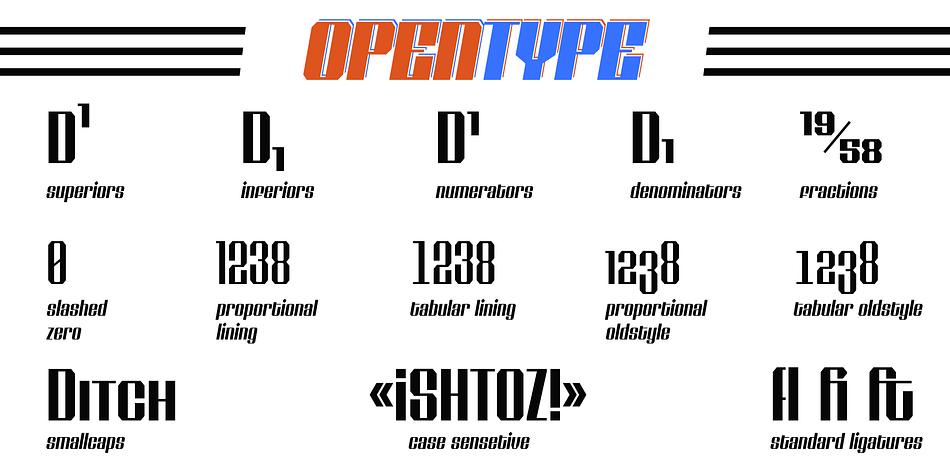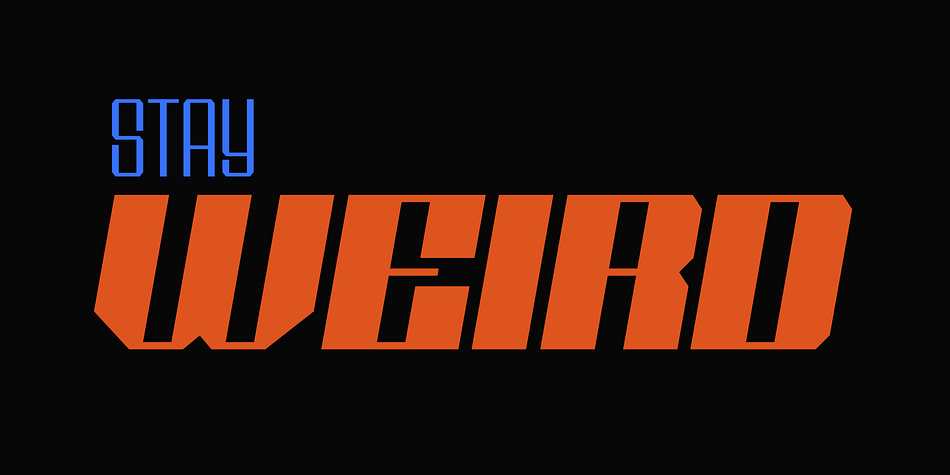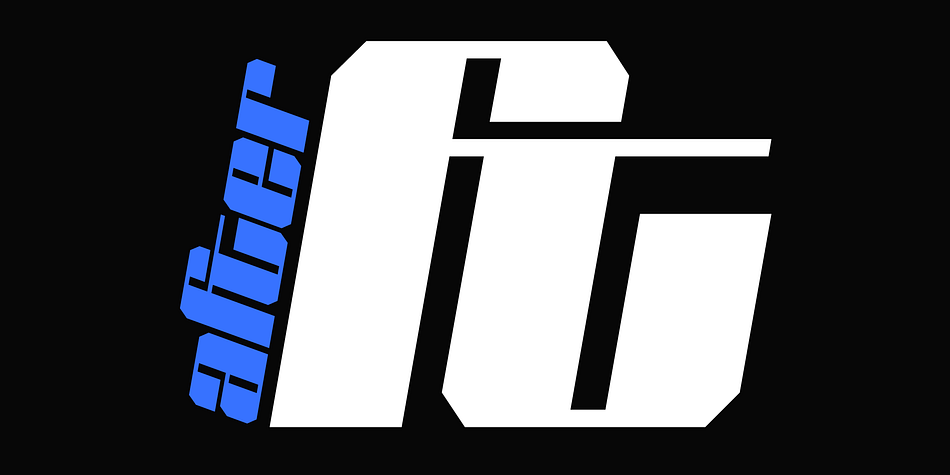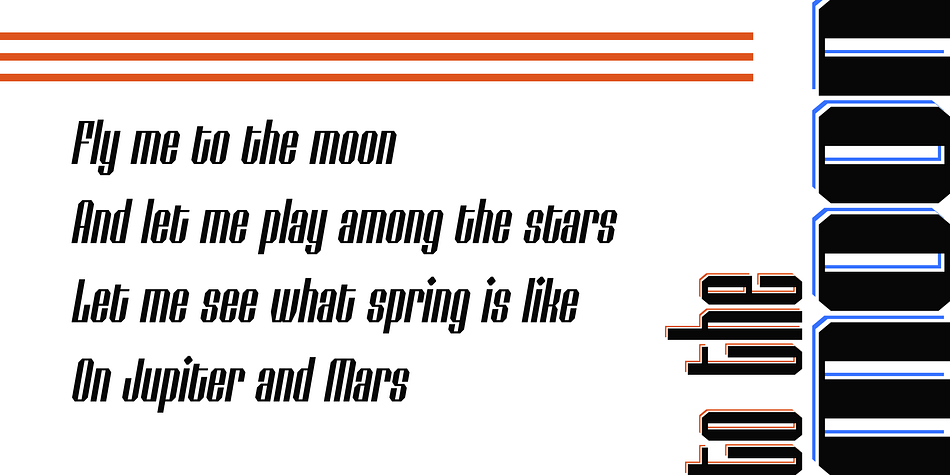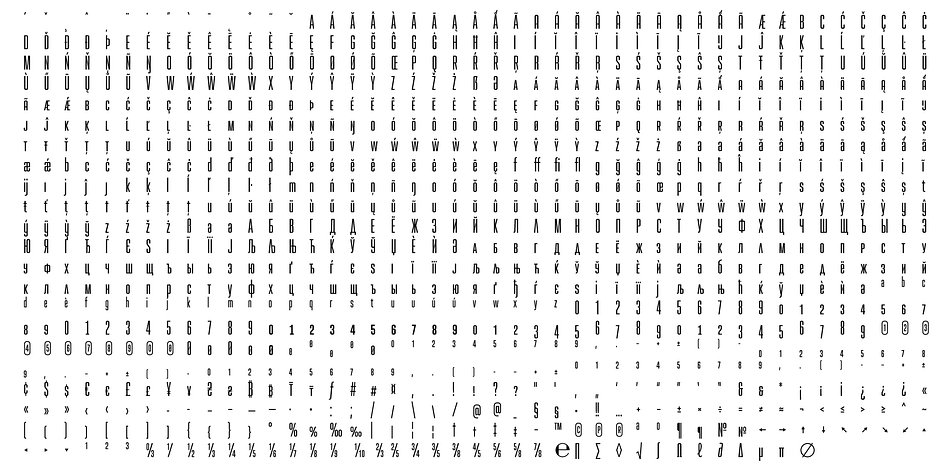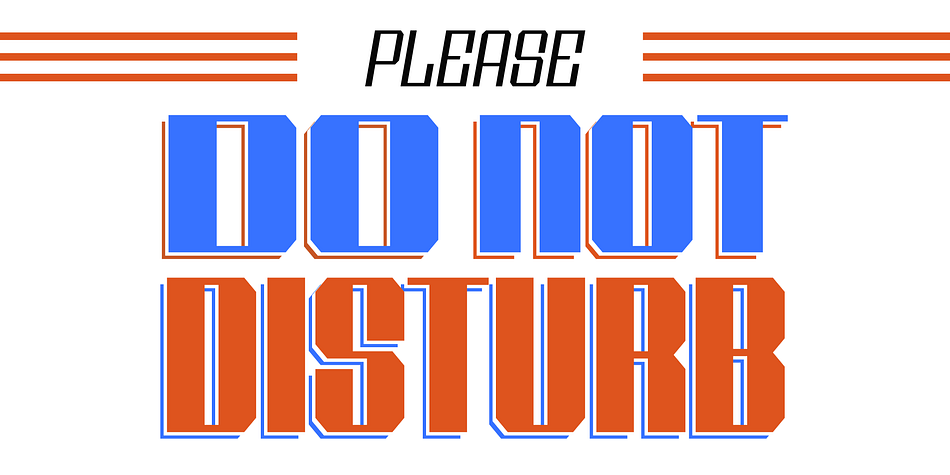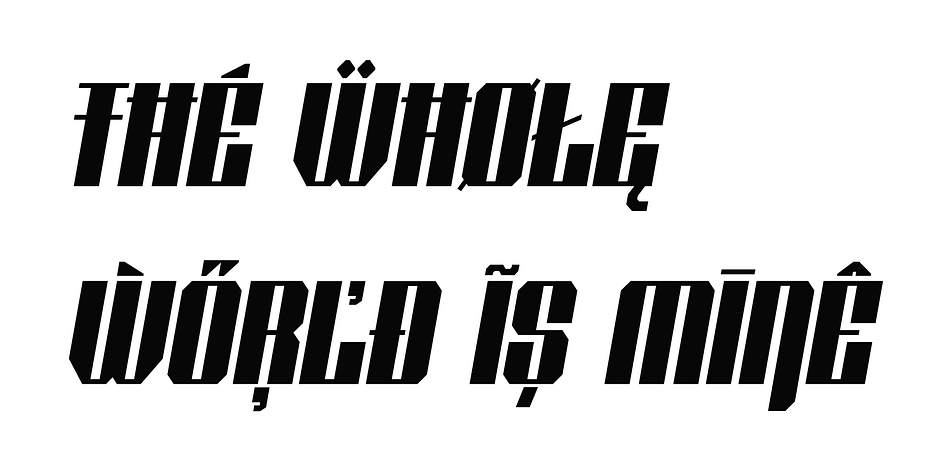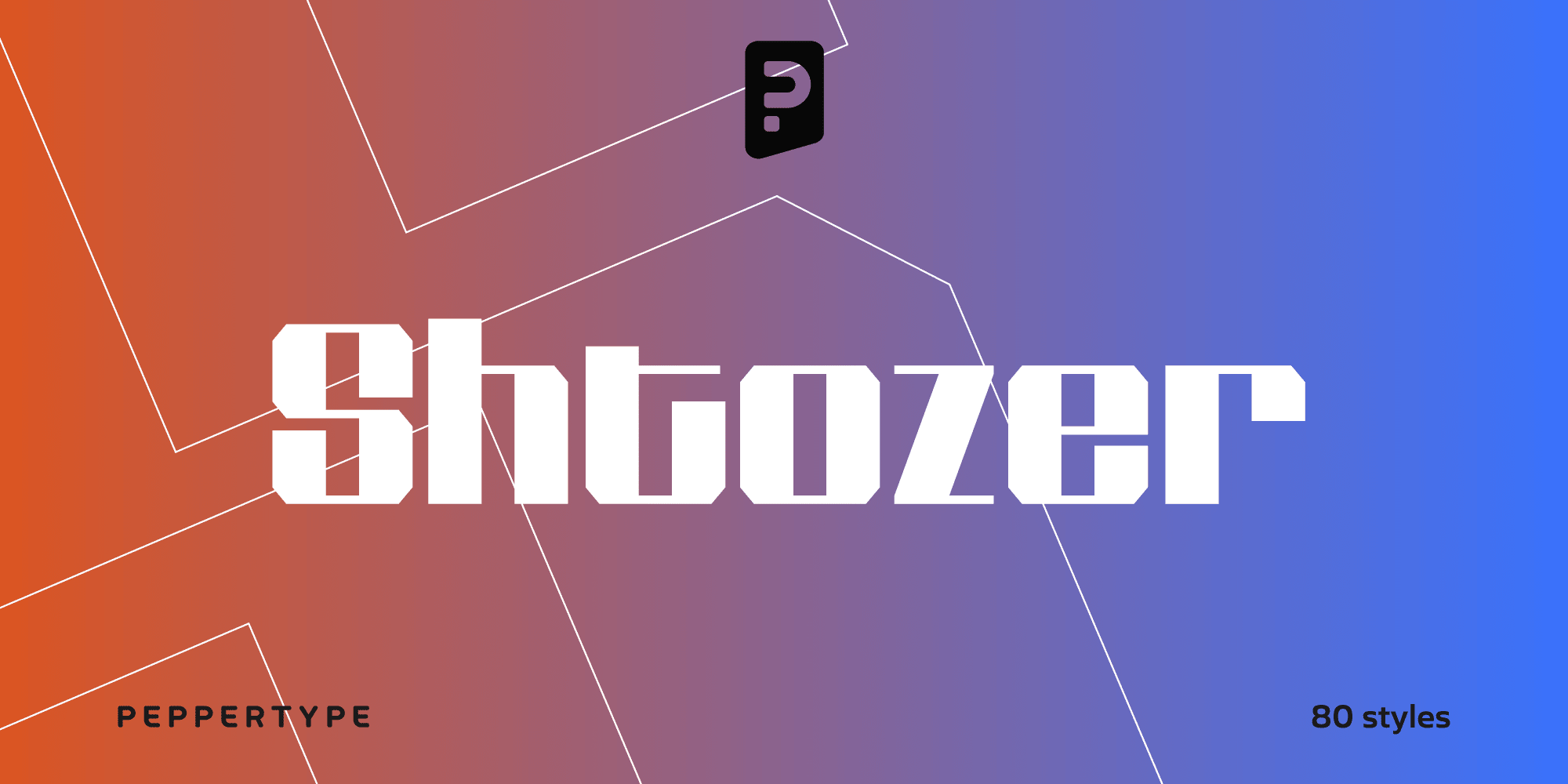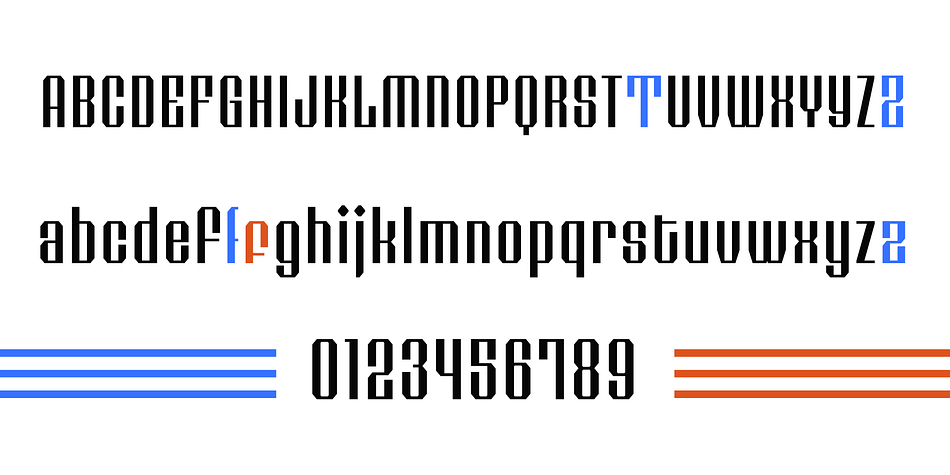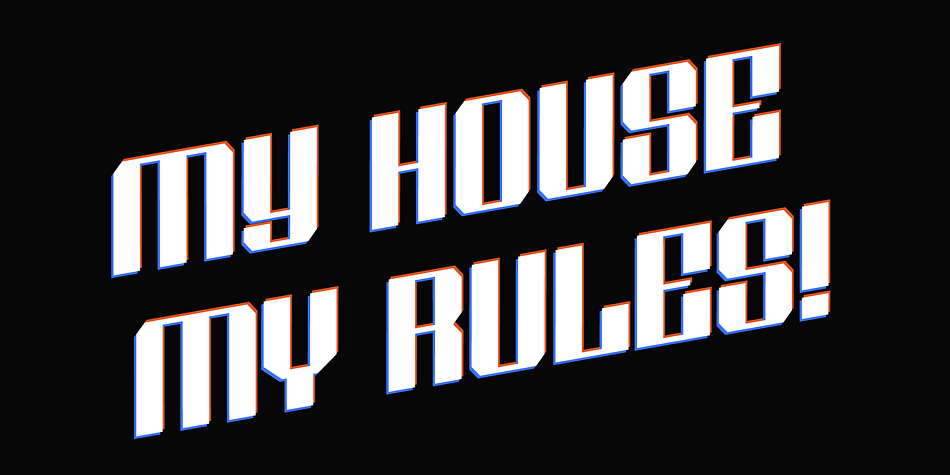
Shtozer is a display serif font family. This typeface has eighty styles and was published by Pepper Type.
Shtozer is a retro-themed display typeface based on designs of 1960s and 1970s and additionally inspired by Cyrillic ornate lettering Vyaz.
It comes in 8 weights, with 5 width variations each, all accompanied with respective obliques - making 80 styles altogether.
Shtozer is a font family with extensive language coverage including Cyrillic script. It also contains numerous OpenType features and alternate glyphs to vivify the typesetting.